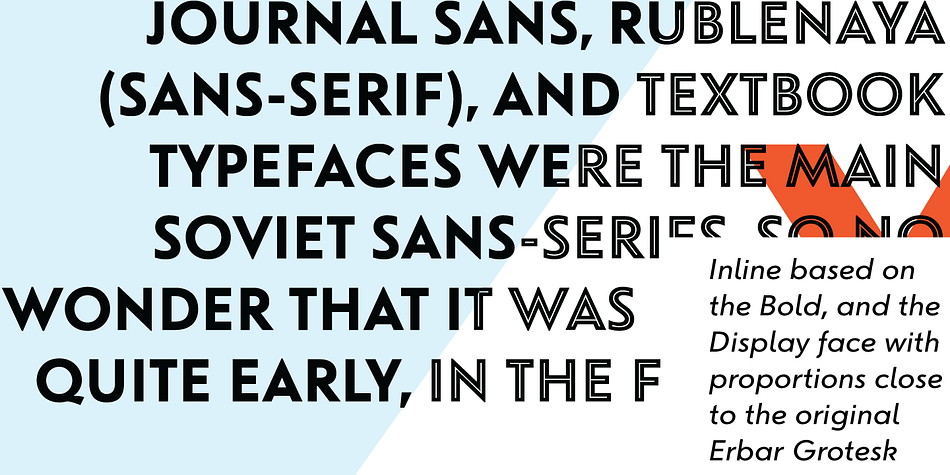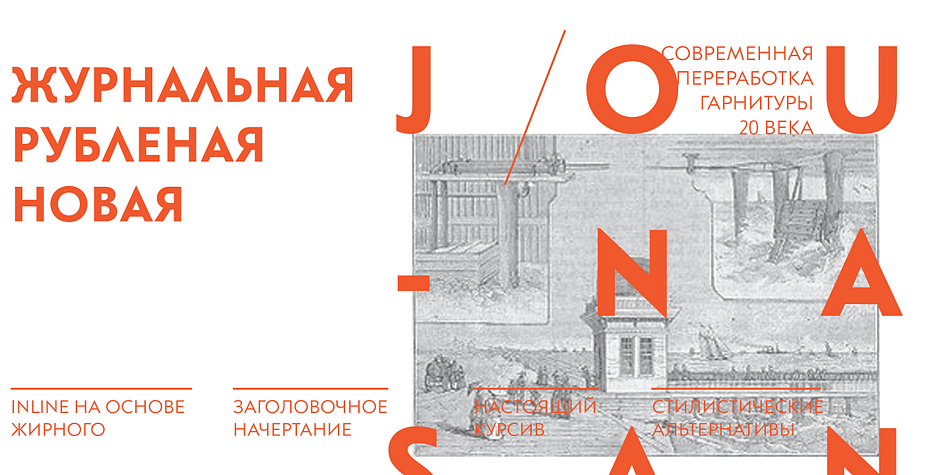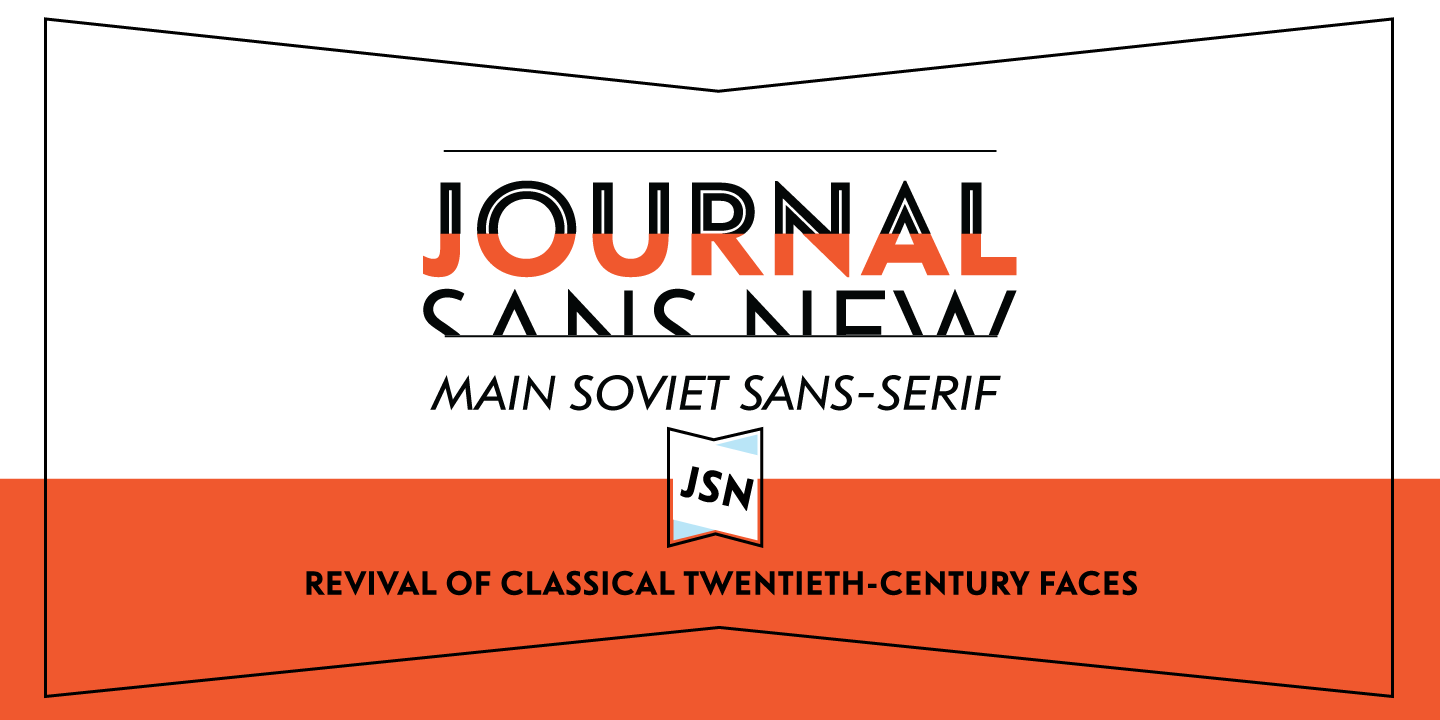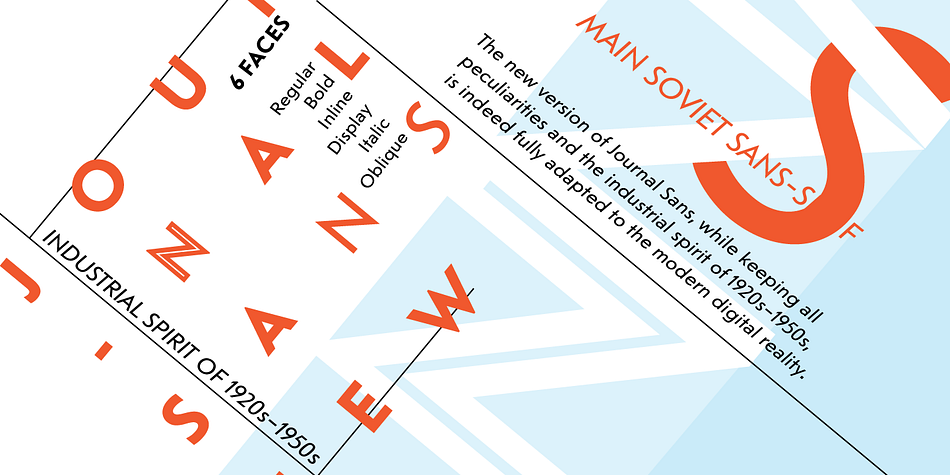
Designed by Alexandra Korolkova and Maria Selezeneva, Journal Sans New is a sans serif font family. This typeface has six styles and was published by ParaType.
Journal Sans New is a contemporary redesign of Journal Sans typeface which was developed in 1940–1956 by the group of designers under Anatoly Shchukin. It was based on Erbar Grotesk by Jacob Erbar and Metro Sans by William A. Dwiggins. Journal Sans New is a geometric sans-serif face with the pronounced spirit of the 1st half of the 20th century. It can be used both for body text and display purposes. Designed by Maria Selezeneva with the participation of Alexandra Korolkova. Released by ParaType in 2014.
Designers | Alexandra Korolkova, Maria Selezeneva |